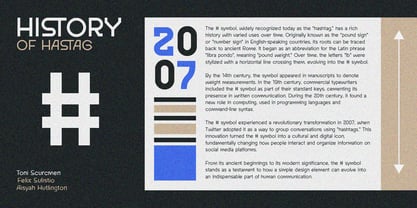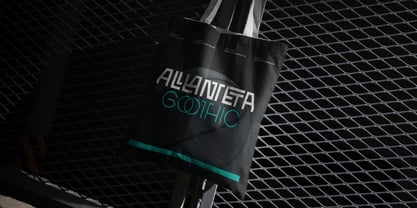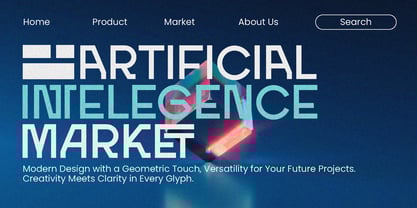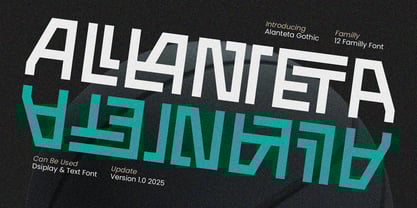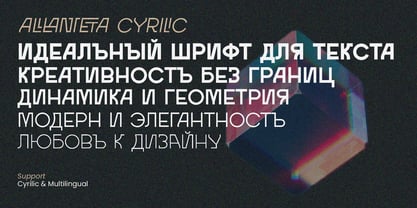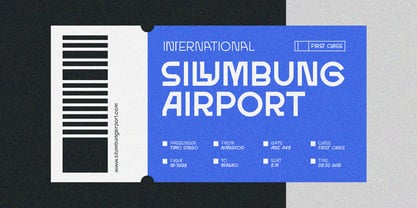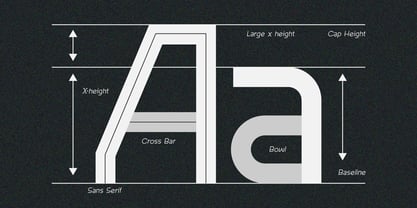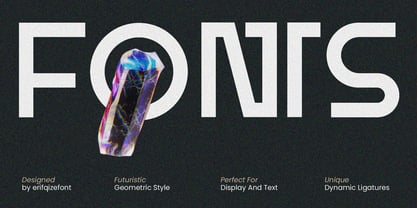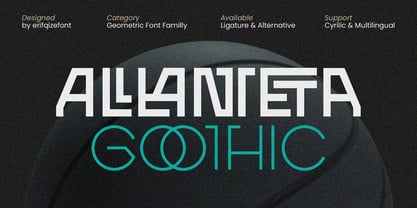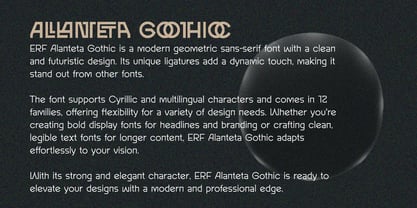
ERF Alanteta Gothic
by Erifqizefont
The ERF Alanteta Gothic Font Family was designed by Eka Rifqi Setiawan and published by Erifqizefont. ERF Alanteta Gothic contains 12 styles and family package options. More about this family
ERF Alanteta Gothic is a modern geometric sans-serif font with a clean and futuristic design. Its unique ligatures add a dynamic touch, making it stand out from other fonts.
The font supports Cyrillic and multilingual characters and comes in 12 families, offering flexibility for a variety of design needs. Whether you're creating bold display fonts for headlines and branding or crafting clean, legible text fonts for longer content, ERF Alanteta Gothic adapts effortlessly to your vision.
With its strong and elegant character, ERF Alanteta Gothic is ready to elevate your designs with a modern and professional edge.
Designers: Eka Rifqi Setiawan
Foundry: Erifqizefont